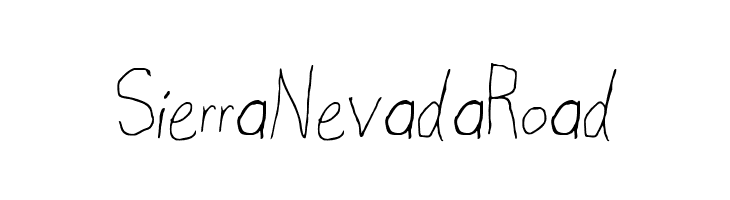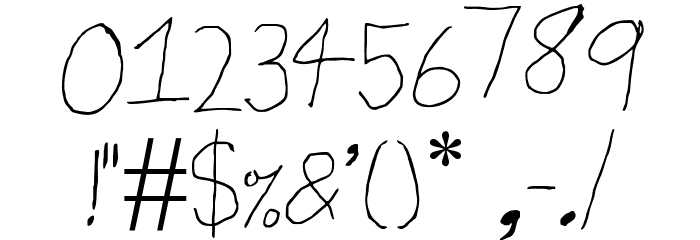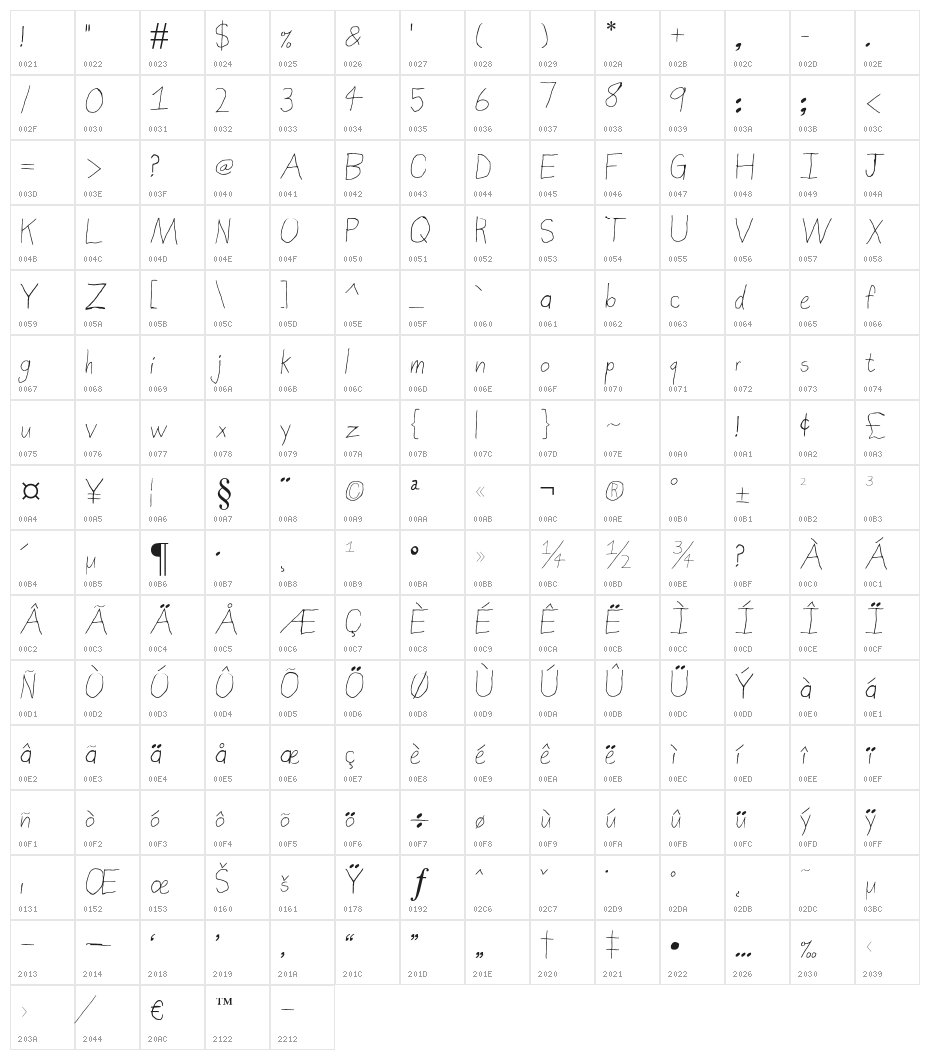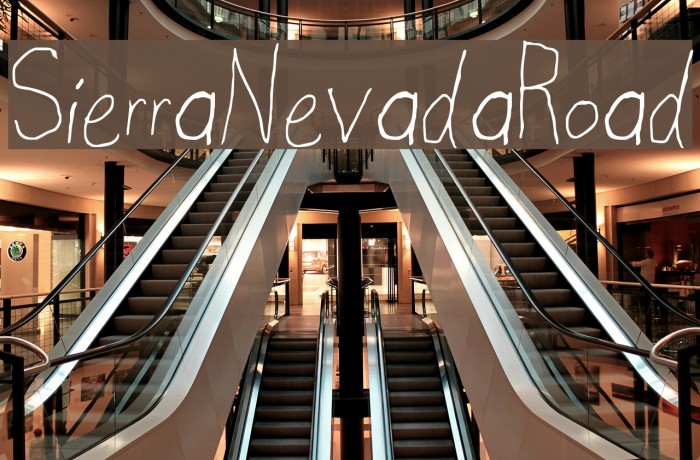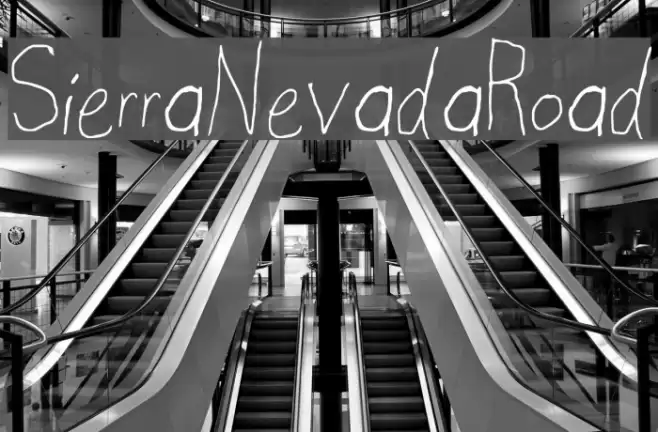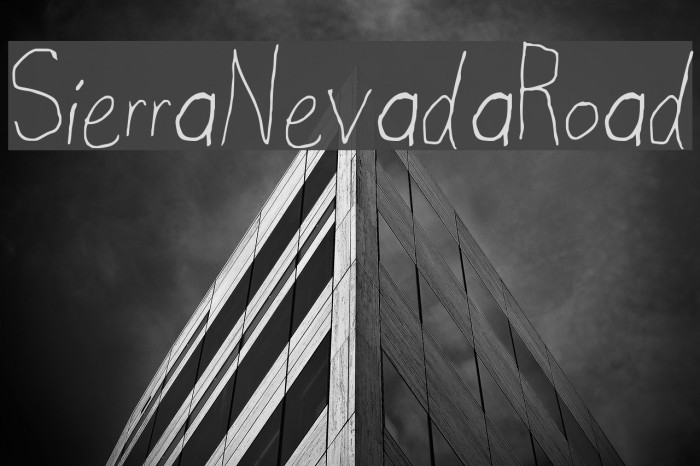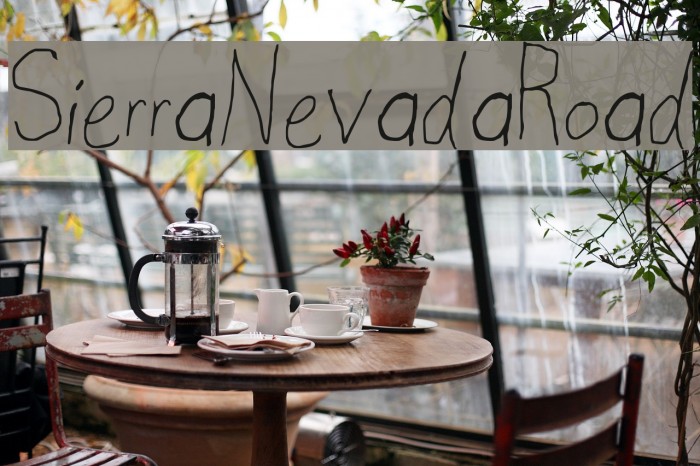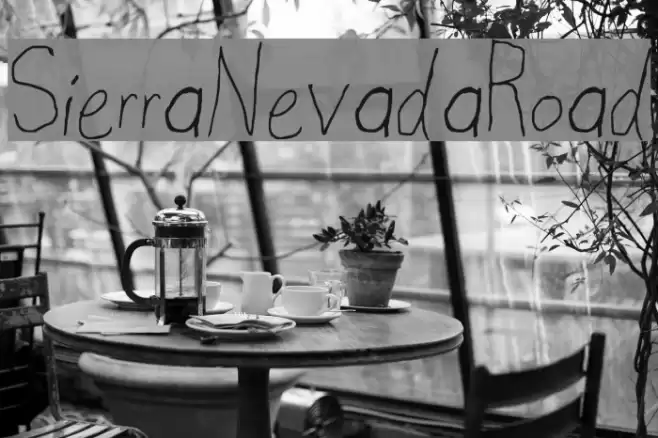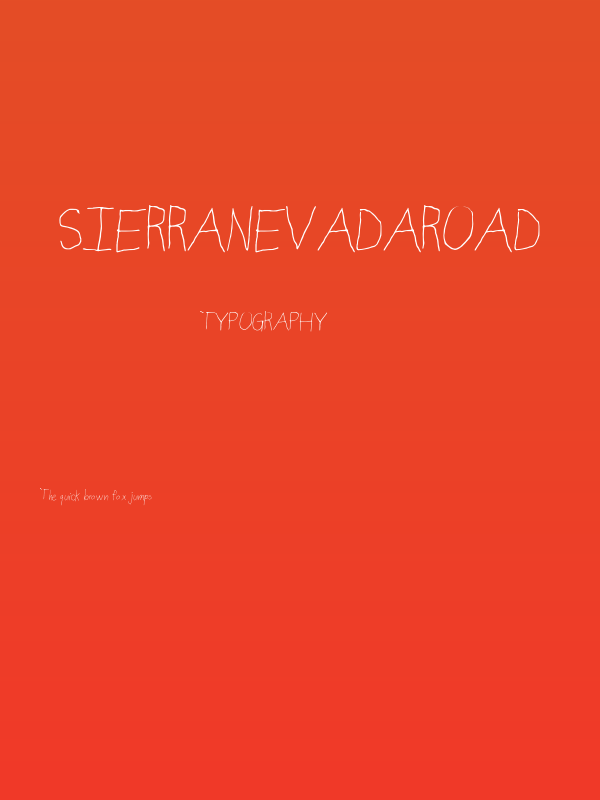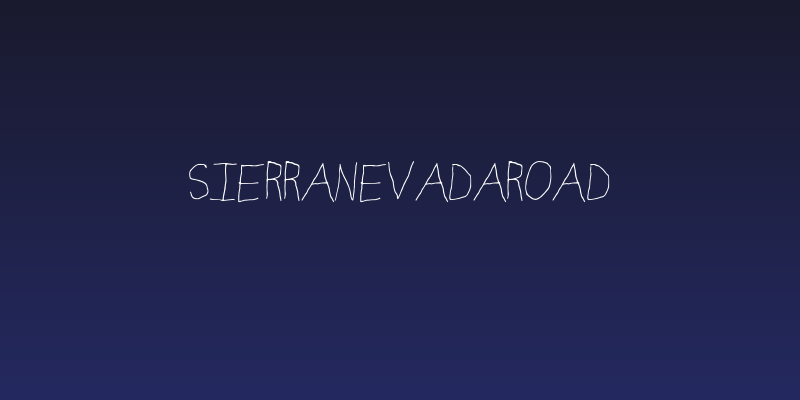
SierraNevadaRoad Font
SierraNevadaRoad Description
This font exhibits a casual, handwritten style with a playful and informal appearance. The letters are slightly irregular, giving it a natural, human touch. The strokes are thin and consistent, with a slight variation that adds to its charm. The characters are well-spaced, providing a clear and readable text. The font includes both uppercase and lowercase letters, numerals, and a variety of special characters, making it versatile for different uses. Its handwritten nature makes it ideal for projects that require a personal or creative touch.
Overall StyleCasual
Use CaseGreeting cards, Personal notes, Creative projects
Proposed ProjectsIdeal for greeting cards, personal notes, creative projects, and informal branding.